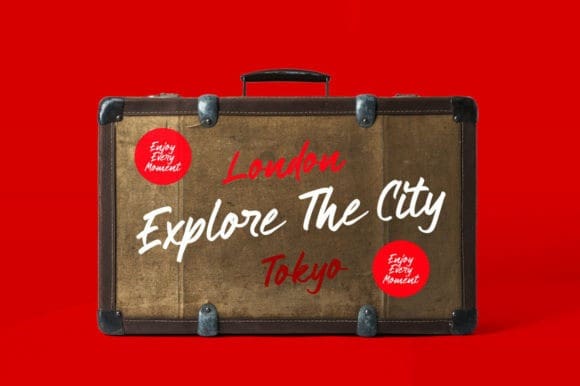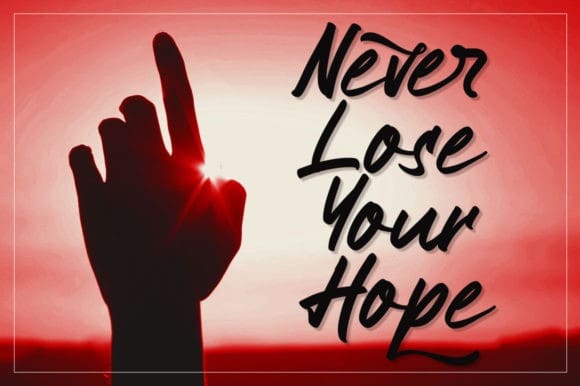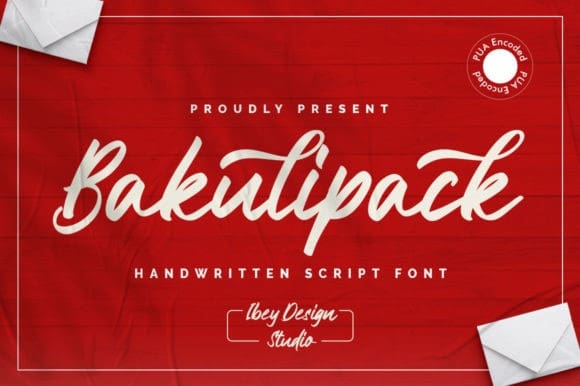
Bakulipack Script Font
Bakulipack Script Font, is a lovely script font featuring charming, playful characters that seem to dance along the baseline. Add it to your most creative ideas, and notice how it makes them stand out! This font is PUA encoded which means you can access all glyphs and swashes with ease!